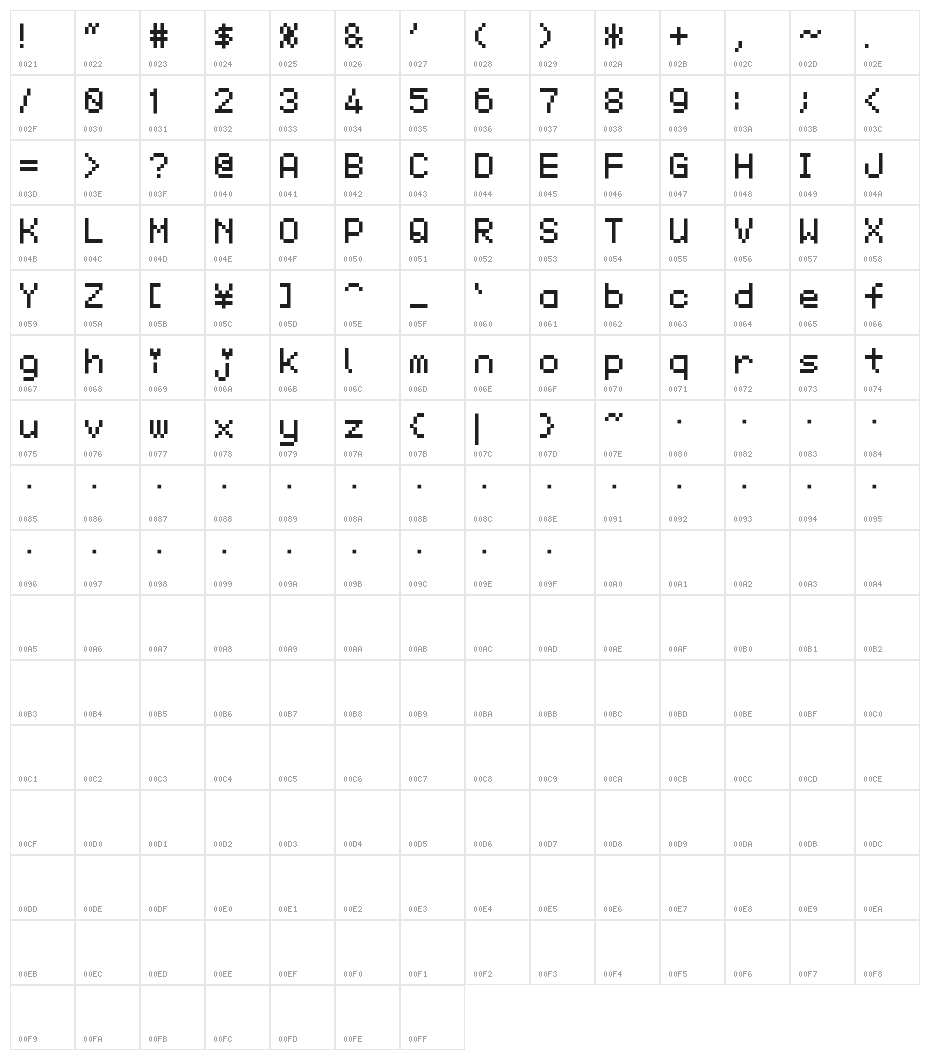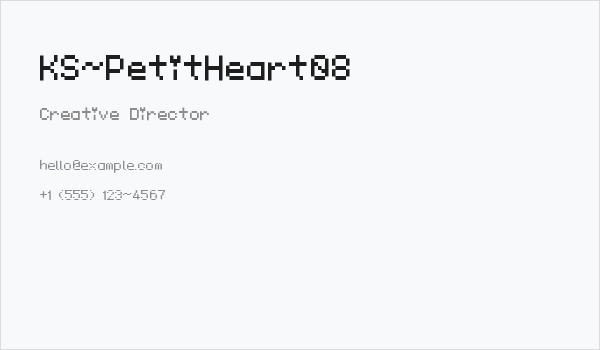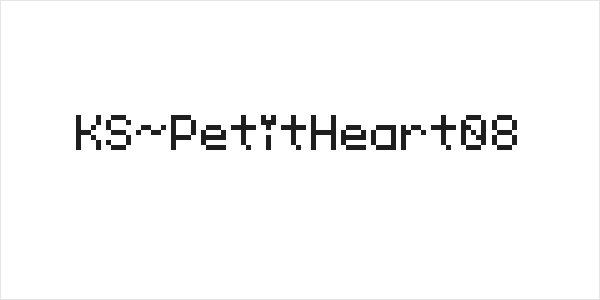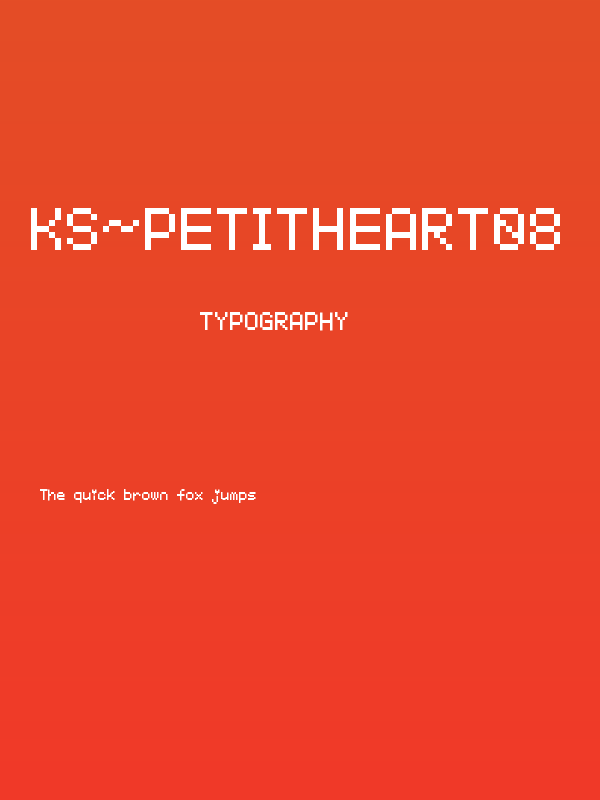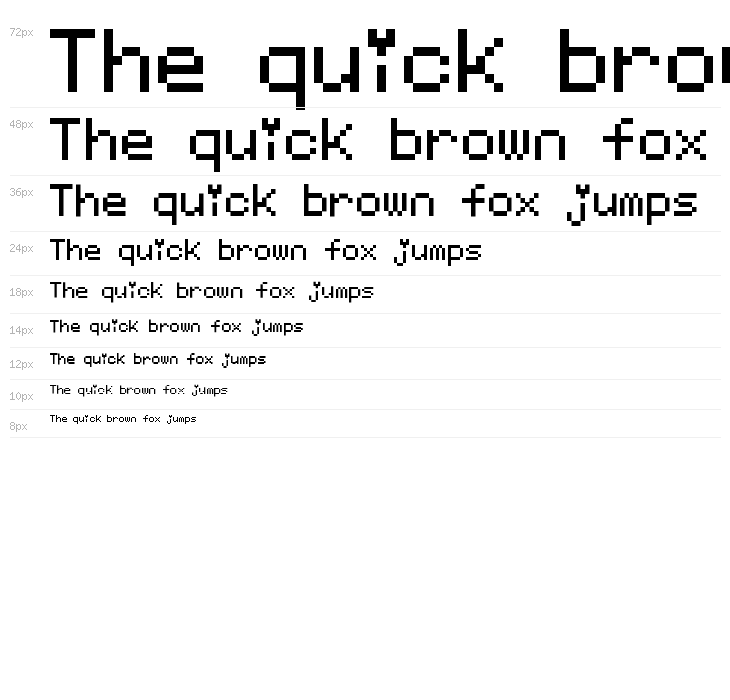
KS-PetitHeart08 Font
KS-PetitHeart08 Description
This font features a pixelated, blocky design reminiscent of classic 8-bit video games. Each character is constructed with a uniform grid-like structure, giving it a distinctly digital and retro appearance. The uppercase and lowercase letters maintain a consistent height, while the numerals and special characters follow the same pixelated style, ensuring uniformity across all glyphs. The font's simplicity and geometric form make it highly legible, even at smaller sizes, while its nostalgic aesthetic evokes a sense of playfulness and charm.
| Overall Style | Retro, Digital |
| Proposed Projects | Ideal for retro video game designs, digital art projects, tech-themed posters, and nostalgic branding. |